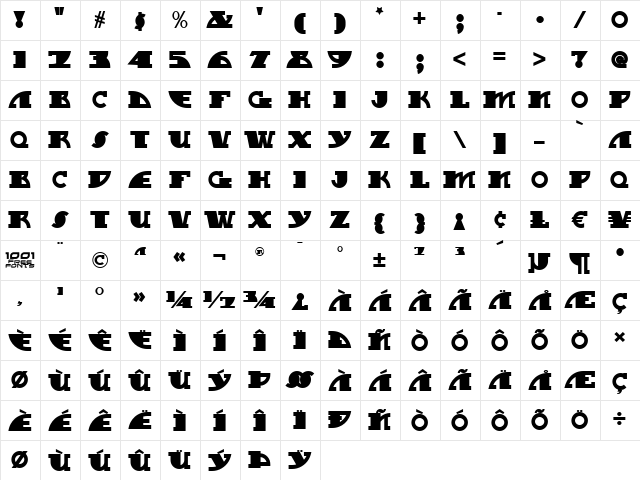
My Gal Swoopy NF Regular
Design Context for My Gal Swoopy NF Typeface
My Gal Swoopy NF is a composed and adaptable typeface that performs quietly and consistently across a wide range of design contexts.